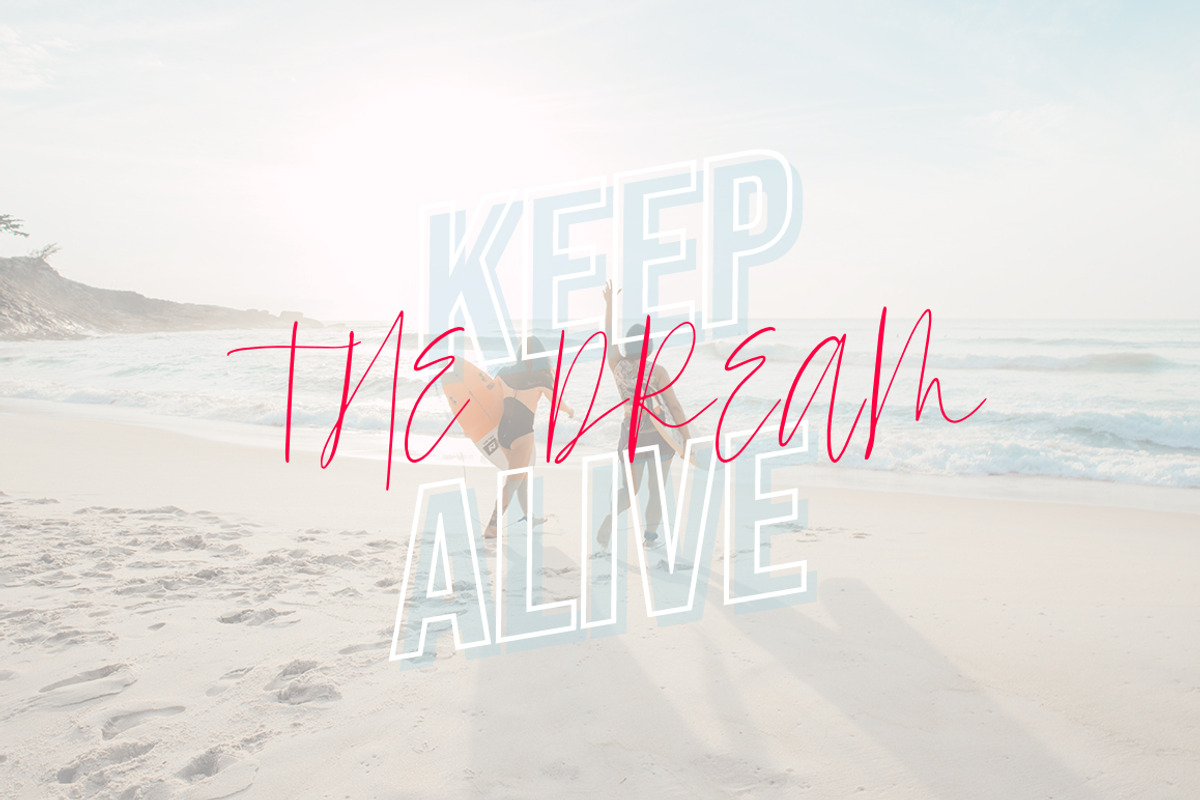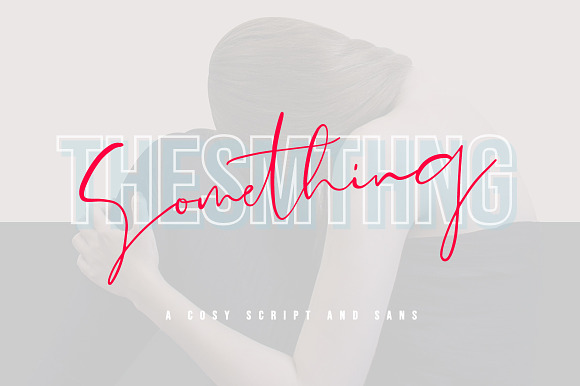
The Something Font Duo
Introducing the elegant new The Something Font Duo! For those of you who are needing a touch of elegance and modernity for your designs, this font was created for you!
Why The Something Font Duo is worth a look
The Something Font Duo by supfonts fits naturally into Branding, posters, packaging, typography.